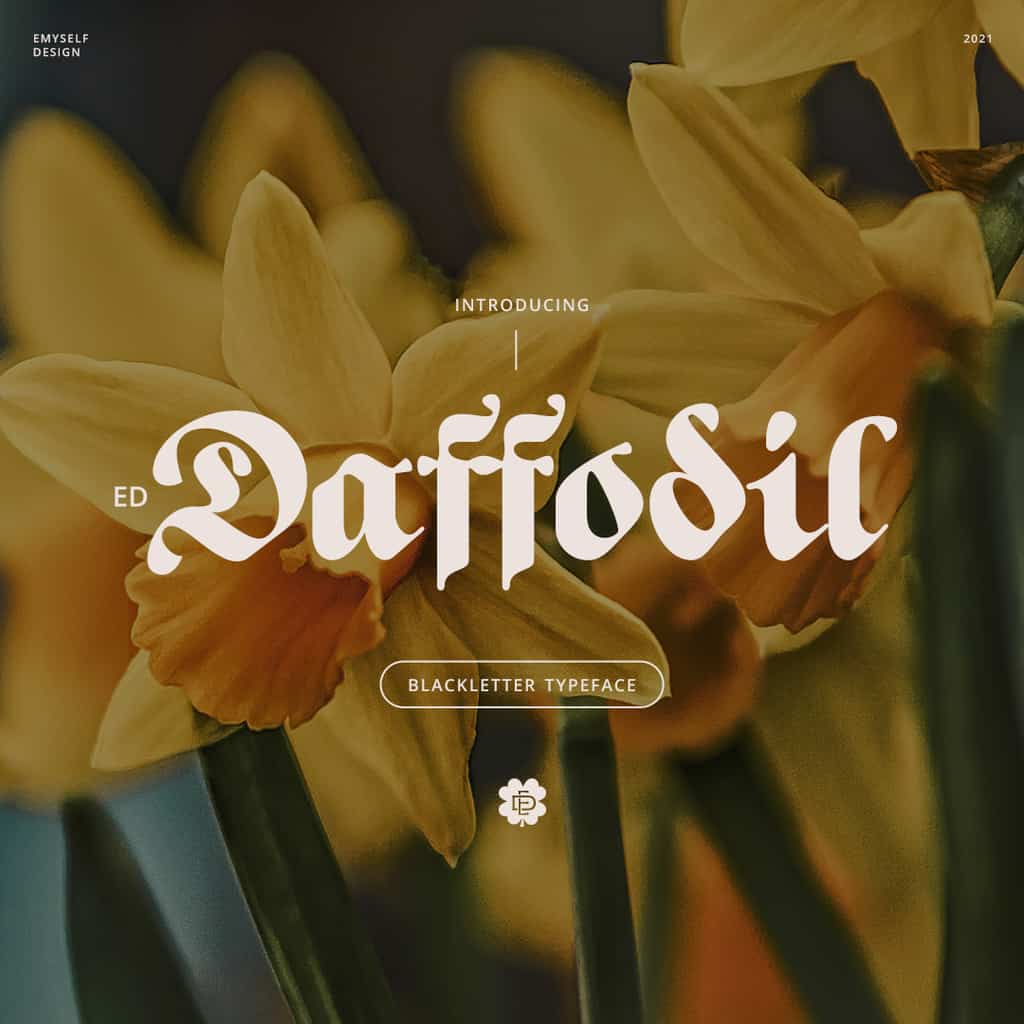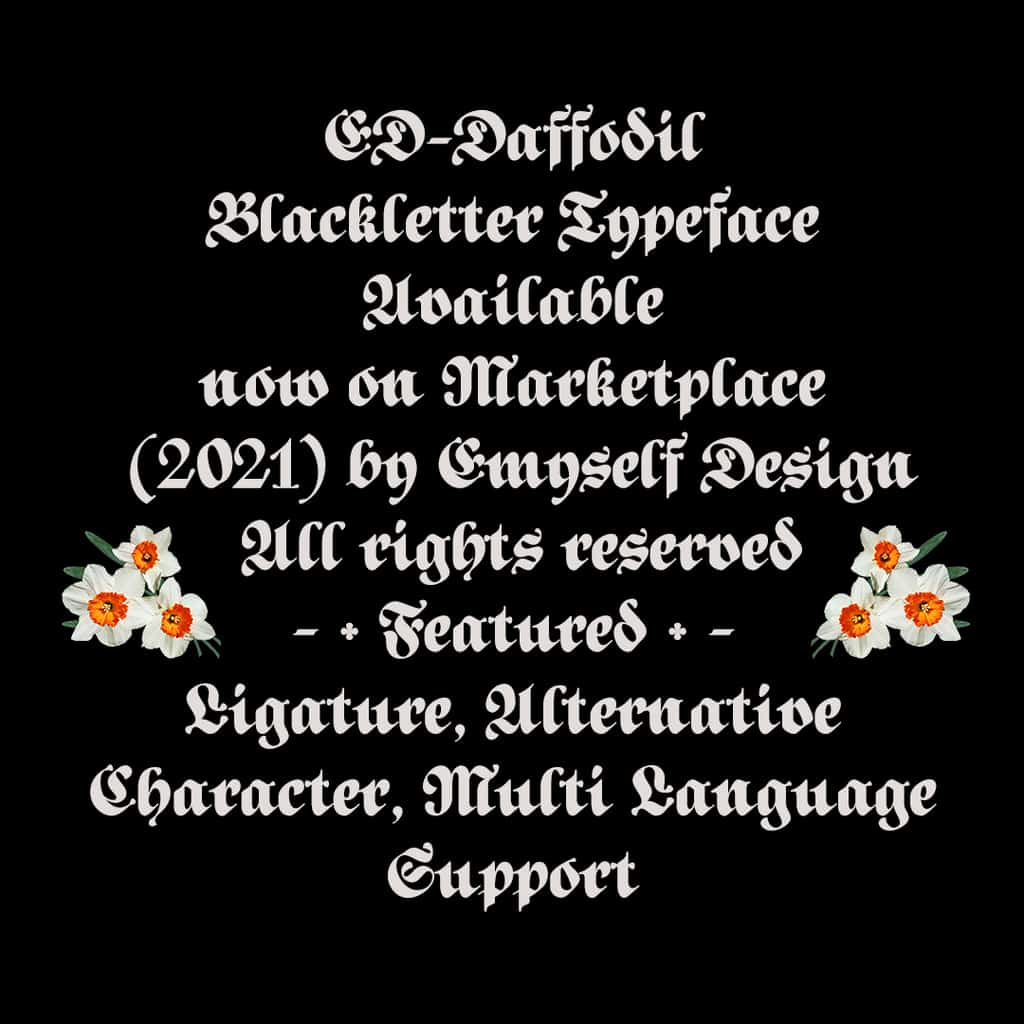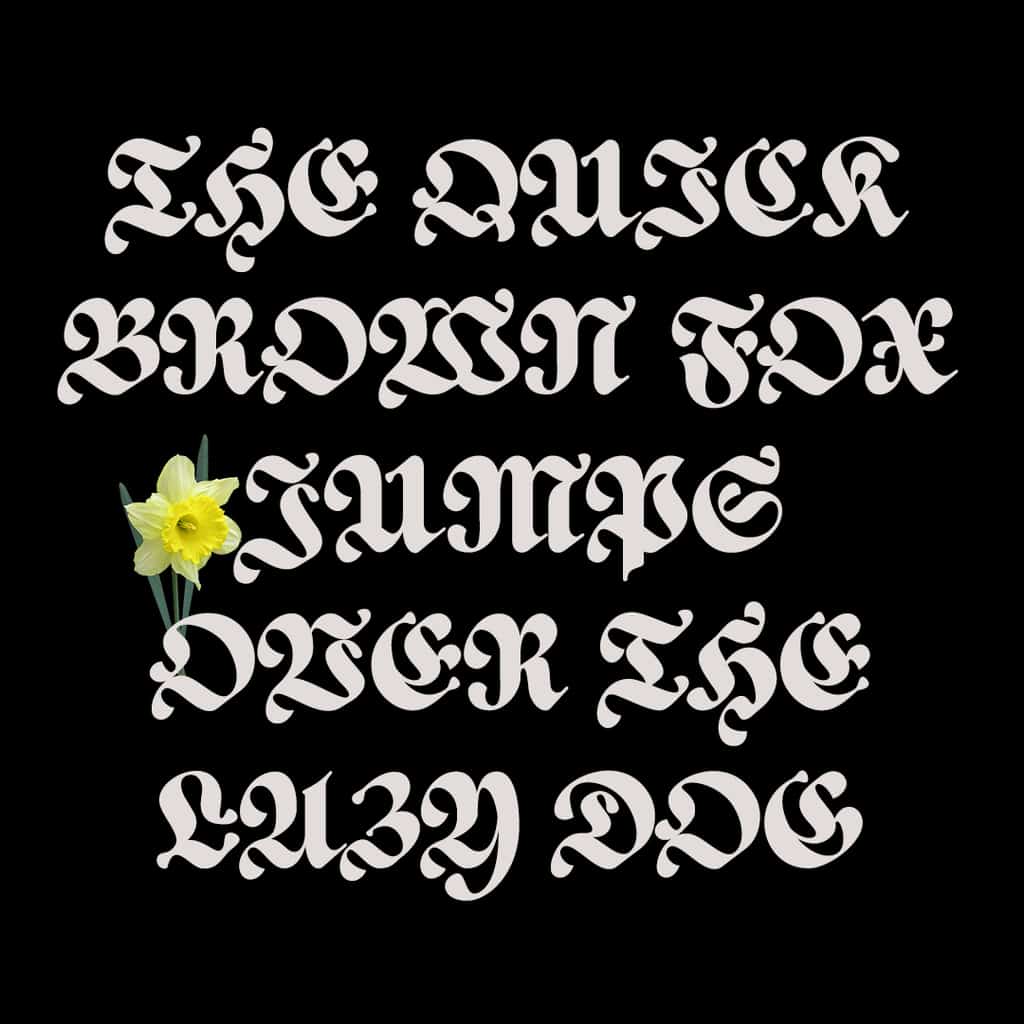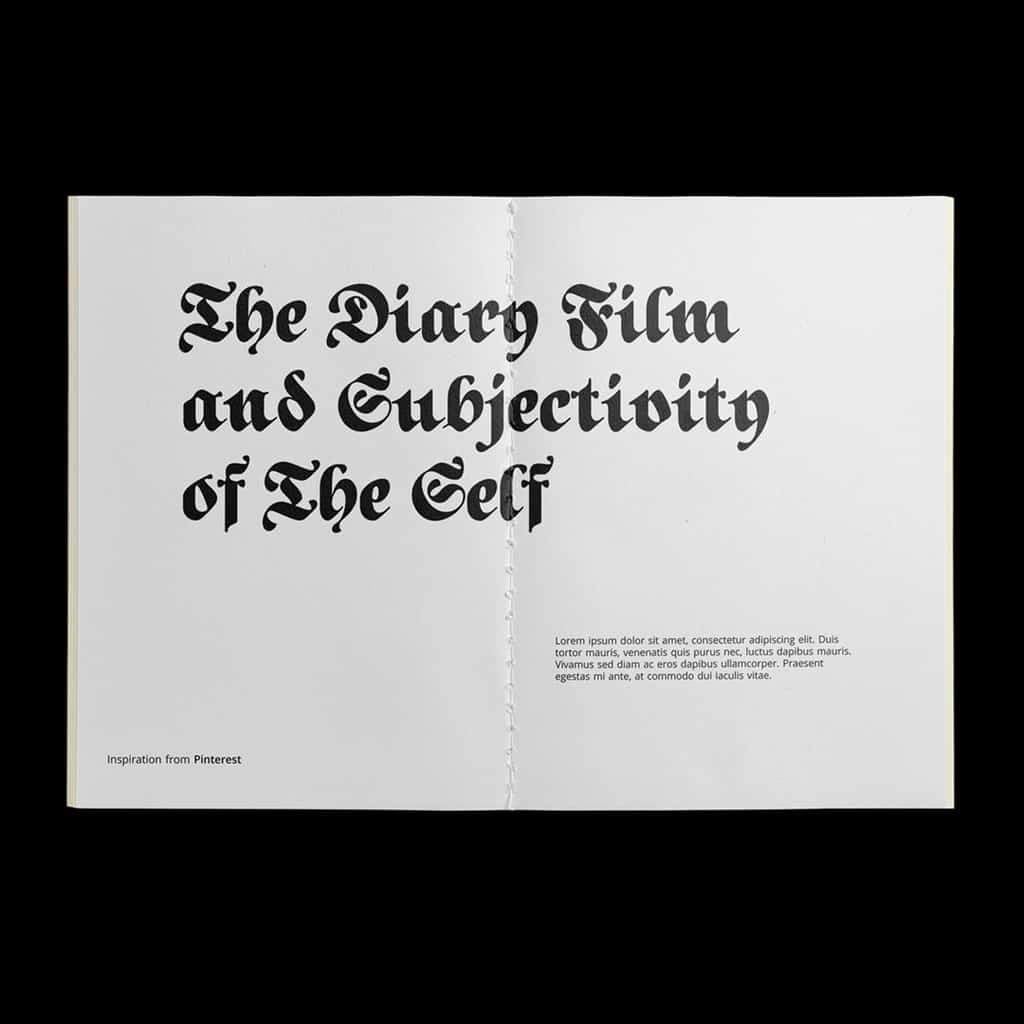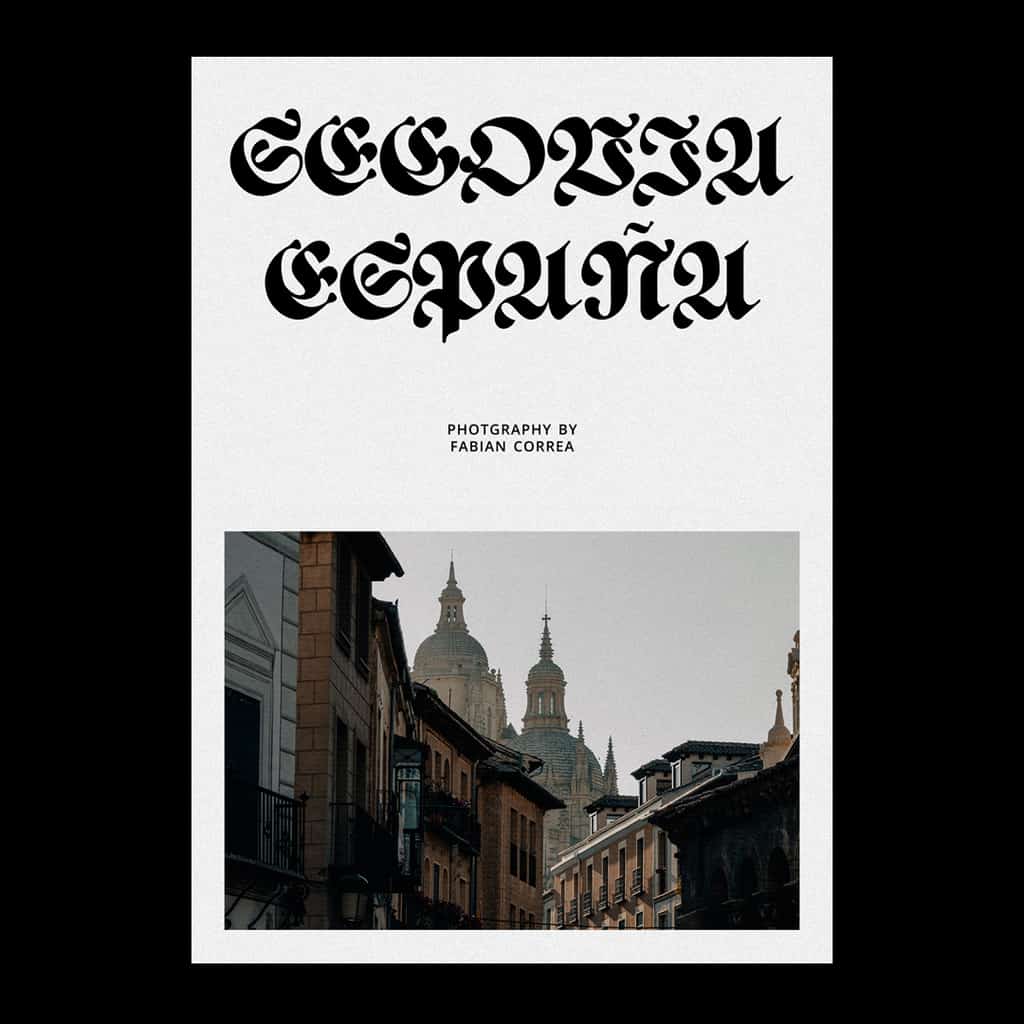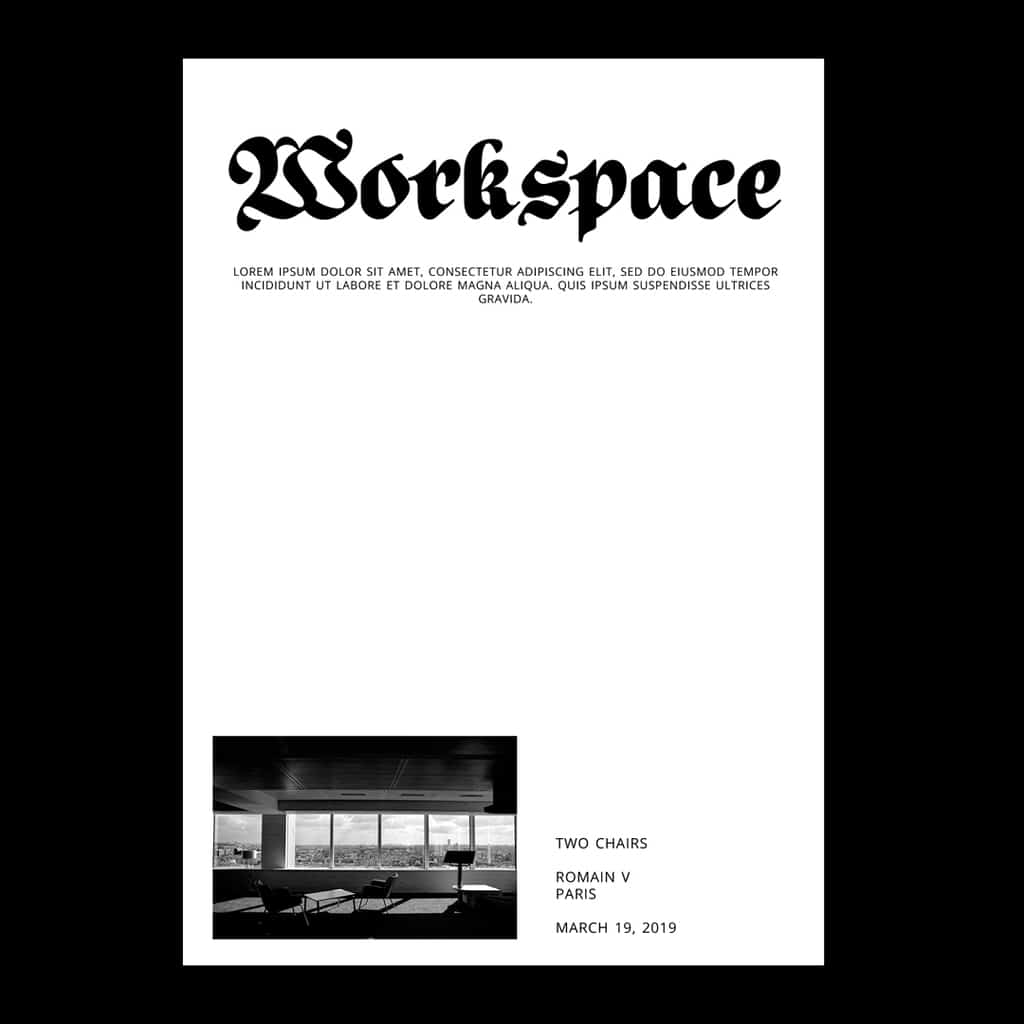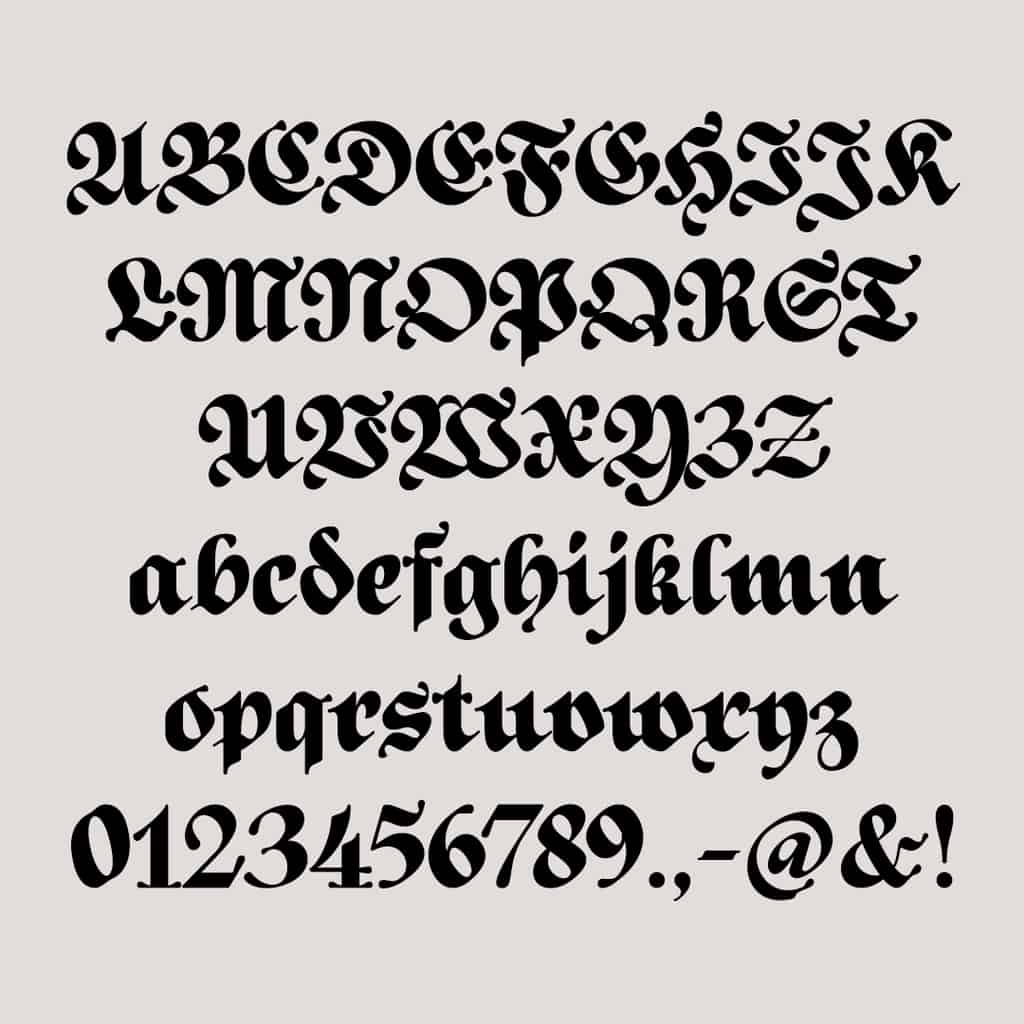
ED Daffodil
Ed Daffodil blends classic blackletter charm with a contemporary touch of groove. Its elegant modern style makes it a versatile choice for a variety of design applications. Ideal for combining with other typefaces, Ed Daffodil offers flexibility to suit your creative needs.